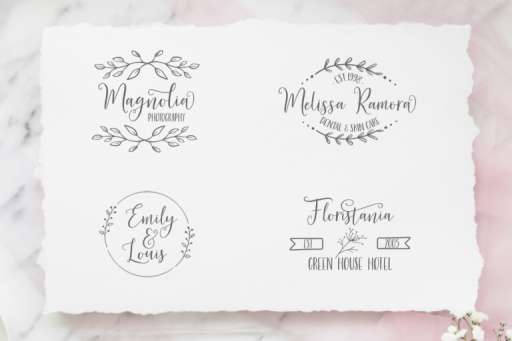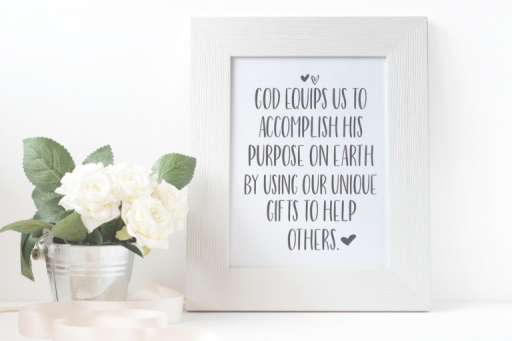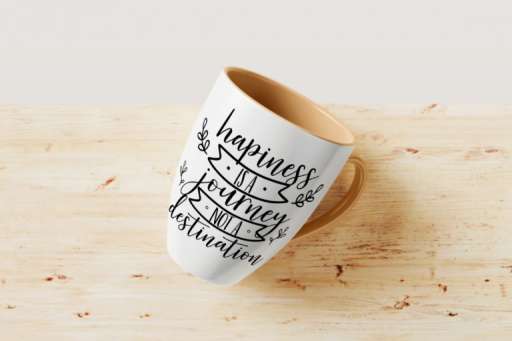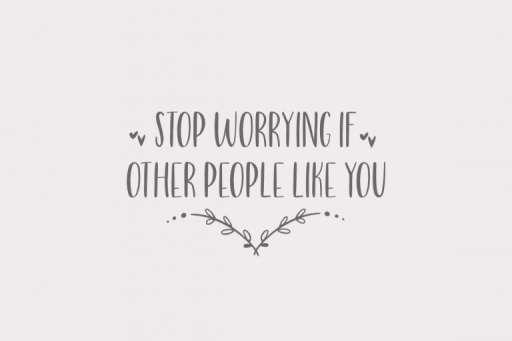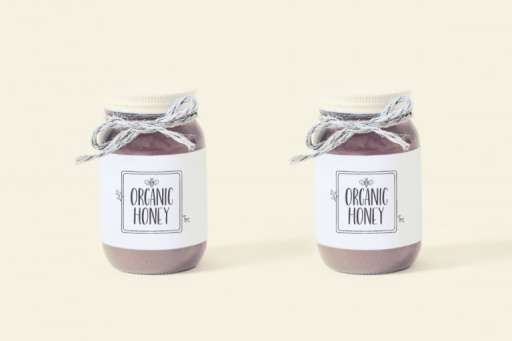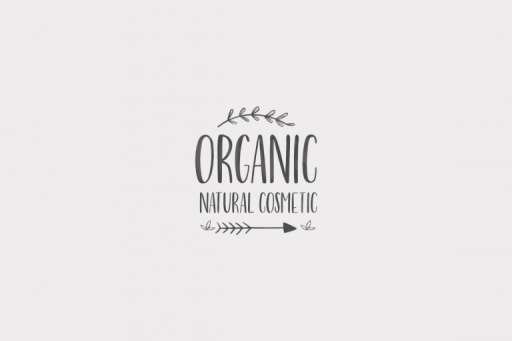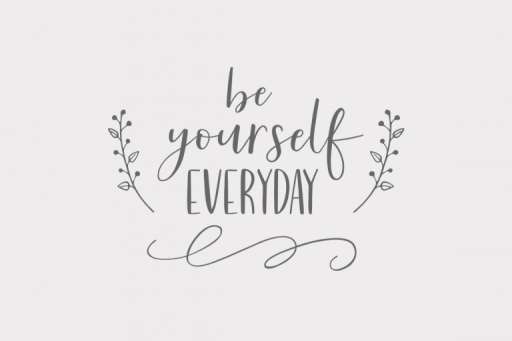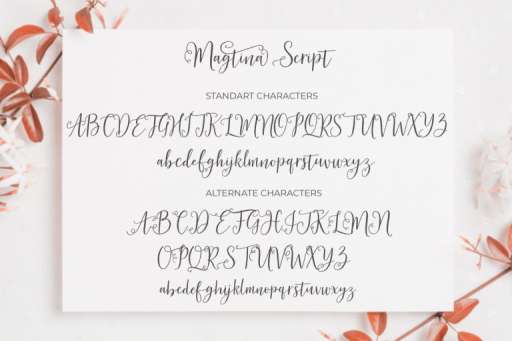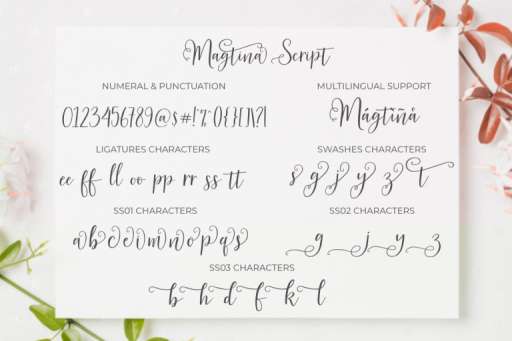
Magtina Font - Premade Logo Business Font From Jimtype Studio
Magtina Script Font
Magtina Script Alt Font
Magtina Sans Font
Magtina Dingbats
Magtina – Handwritten Font Duo
Magtina is a font duo suitable for a logo design it comes with an extra dingbat font. Magtina script has a sweet beautiful character with a stylistic set, alternate, and ligature to add a natural impression.
The Extras dingbat font has 68 sweet beautiful florals. All available by hitting the keystrokes A-Z, a-z, 0-9, and several punctuation buttons. Magtina as an OpenType font with alternate Uppercase and Lowercase characters.
Magtina Features :
• Alternates
• Stylistic set
• Swashes
• Extra dingbat
• PUA Encode
• Multilingual